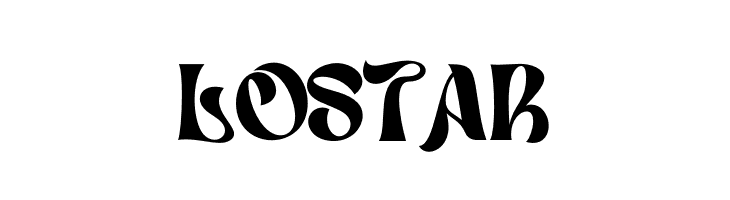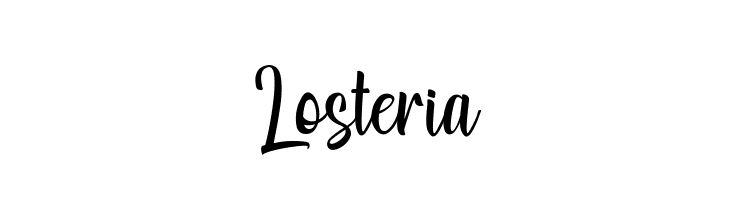
A refined and elegant typeface with high contrast and elongated letterforms.
A bold, decorative font with high contrast and playful curves.
A playful, bold, and rounded hand-drawn font.
A playful, handwritten font with fluid, slightly irregular strokes.
An elegant, flowing script font with smooth, cursive strokes.
A bold, textured, hand-drawn font with a dynamic and energetic style.
A distressed, grungy font with irregular, jagged edges.
A bold, flowing script font with a handwritten appearance.
A flowing, cursive font with elegant, connected characters and subtle flourishes.
A bold, decorative font with horizontal stripes and a modern flair.